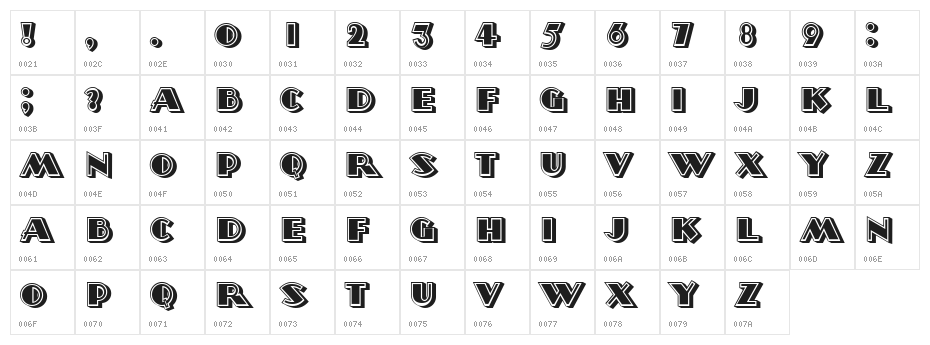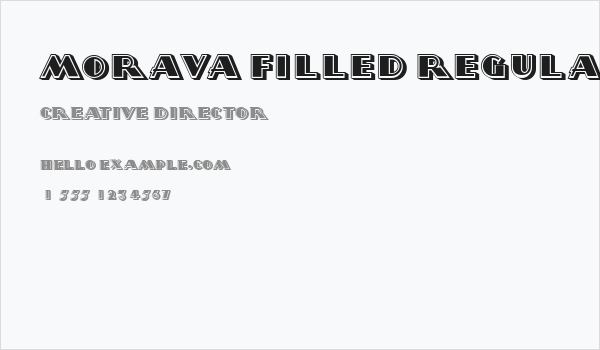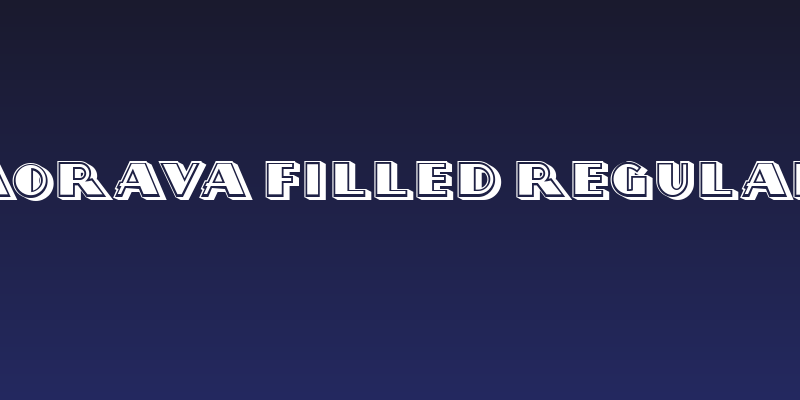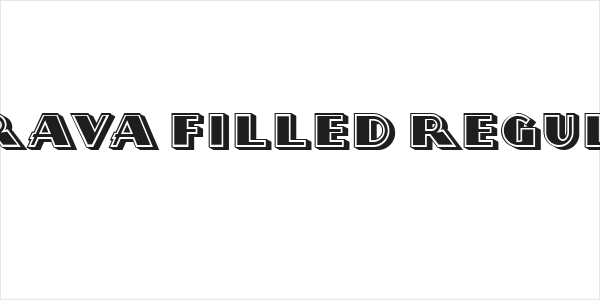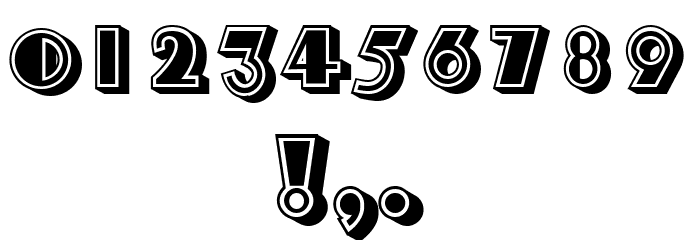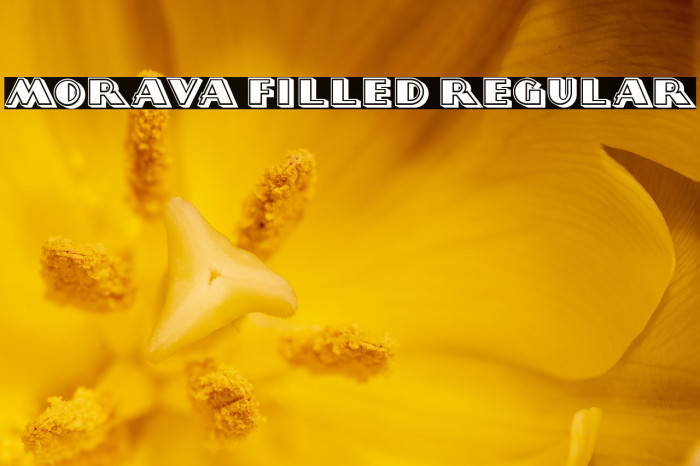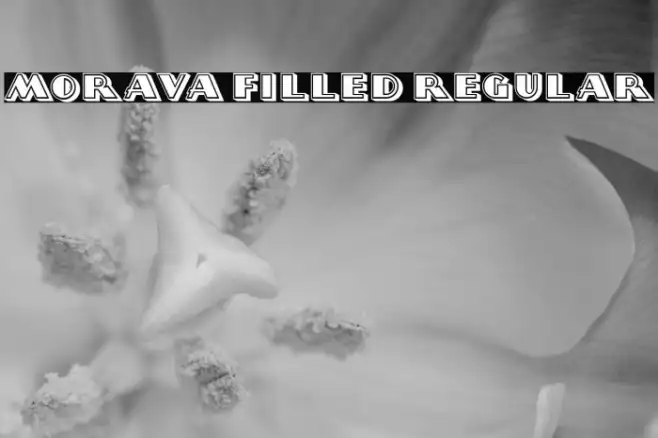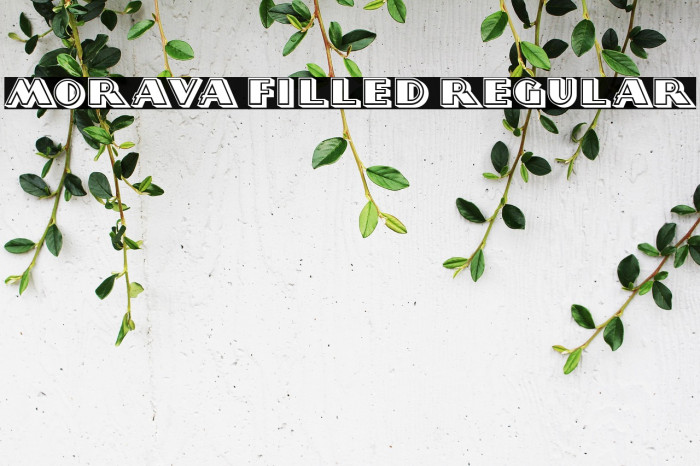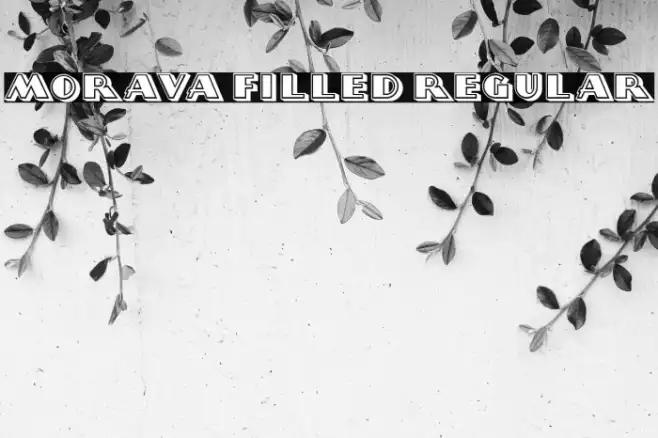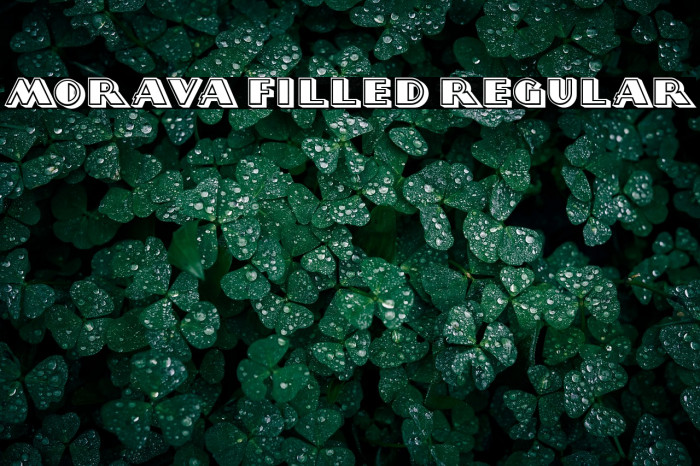
Morava Filled Regular Font
Morava Filled Regular Description
This font features a bold, decorative style with a filled, shadowed effect that creates a striking three-dimensional appearance. The uppercase letters are robust and angular, with a distinct geometric influence. The characters are outlined with a thick border, enhancing their boldness and making them stand out. The numbers and special characters maintain the same stylistic approach, ensuring consistency across all glyphs. The font's design is eye-catching and ideal for projects that require a strong visual impact.
| Proposed Projects | Ideal for poster designs, headlines, branding, and any project requiring a strong visual impact. |